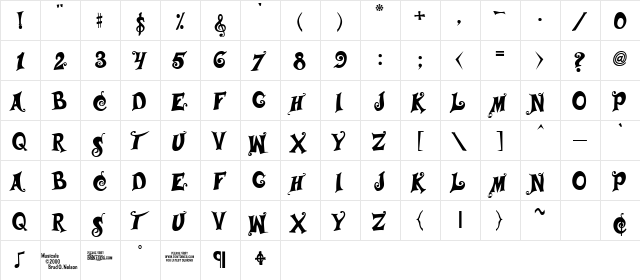
Musicals Regular Font Preview
Musicals Regular
Musicals Regular Font Details
Design Context for Musicals Typeface
Musicals is a composed and adaptable typeface that performs quietly and consistently across a wide range of design contexts.